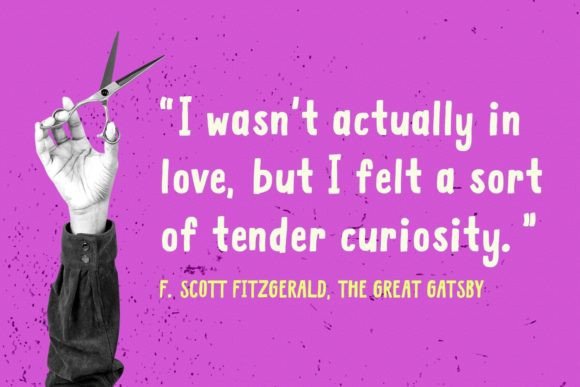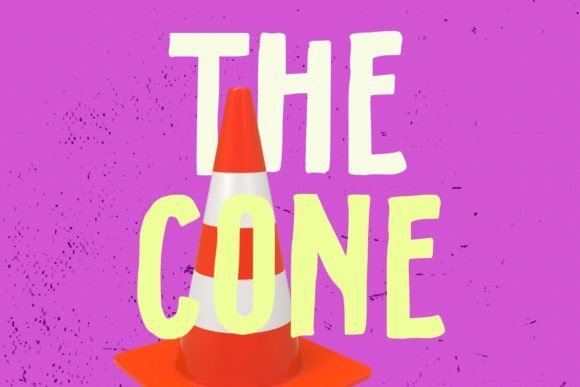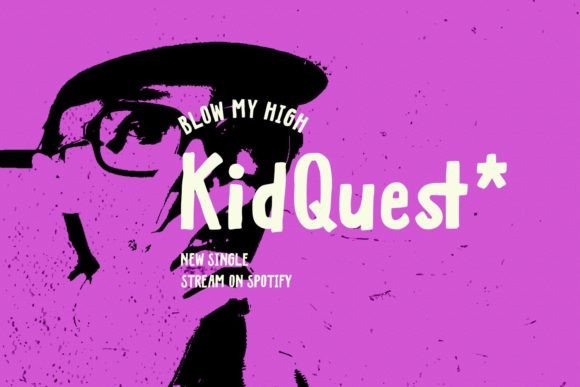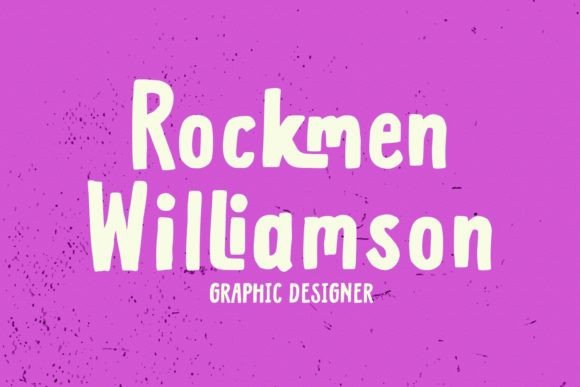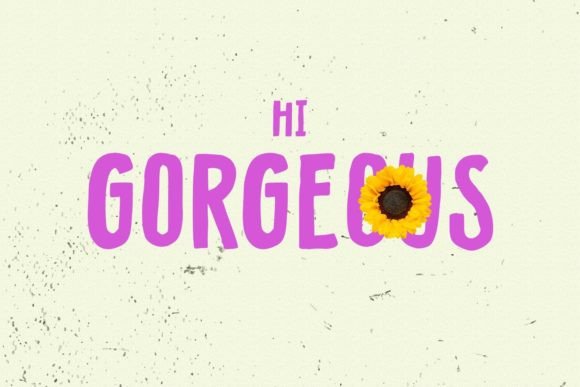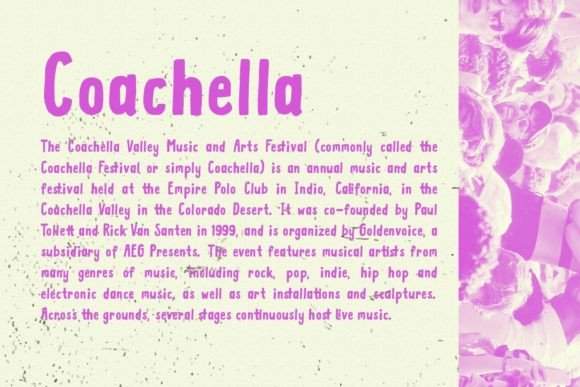
Introducing Coretras Font: The Ultimate Organic Handwritten Sans Serif Font
Are you tired of using the same old fonts for your design projects? Look no further! Coretras Font is here to revolutionize your creative workflow with its unique blend of bold brush strokes, fun characters, and ligatures. This organic handwritten sans serif font is perfect for designers and crafters looking to add a personal touch to their work.
What Makes Coretras Font Special?
Coretras Font is an exceptional typeface that boasts a distinctive character set, making it ideal for a wide range of design applications. Its key features include:
- Organic Handwritten Style: Coretras Font has a natural, hand-crafted feel that adds warmth and personality to any design.
- Bold Brush Strokes: The font’s bold brush strokes give it a dynamic and energetic look, perfect for making a statement.
- Fun Characters and Ligatures: Coretras Font comes with a range of fun characters and ligatures that allow you to add a touch of whimsy to your designs.
Use Cases for Coretras Font
Coretras Font is an incredibly versatile typeface that can be used for a variety of design projects, including:
- Logo Design: Create stunning logos that stand out from the crowd with Coretras Font’s bold and playful style.
- Social Media Graphics: Add a personal touch to your social media graphics, posts, and stories with this unique font.
- Movie and Book Titles: Use Coretras Font to create eye-catching titles for movies, books, and other publications.
- Long Text and Short Text: Whether you’re working with short phrases or long paragraphs, Coretras Font is optimized for readability and style.
Why Choose Coretras Font?
With so many fonts available, why choose Coretras Font? Here are just a few reasons:
- Creativity Unleashed: Coretras Font is designed to inspire creativity and help you produce stunning work.
- Flexibility: This font is suitable for a wide range of design applications, from logos and social media graphics to movie titles and books.
- Easy to Read: Despite its bold and playful style, Coretras Font remains highly readable, even in smaller sizes.
Tips for Using Coretras Font
To get the most out of Coretras Font, here are a few tips:
- Experiment with Colors: Coretras Font looks great in a variety of colors, so don’t be afraid to experiment and find the perfect hue for your design.
- Mix and Match: Try pairing Coretras Font with other fonts, such as sans serif or serif fonts, to create visually interesting combinations.
- Pay Attention to Ligatures: Coretras Font’s ligatures are designed to add a touch of personality to your designs, so be sure to use them to create unique and eye-catching text.
Coretras Font is an exceptional organic handwritten sans serif font that’s perfect for designers and crafters looking to add a personal touch to their work. With its bold brush strokes, fun characters, and ligatures, this font is sure to inspire creativity and help you produce stunning designs. Whether you’re working on a logo, social media graphics, movie titles, or books, Coretras Font is the perfect choice. So why wait? Download Coretras Font today and unleash your creativity!